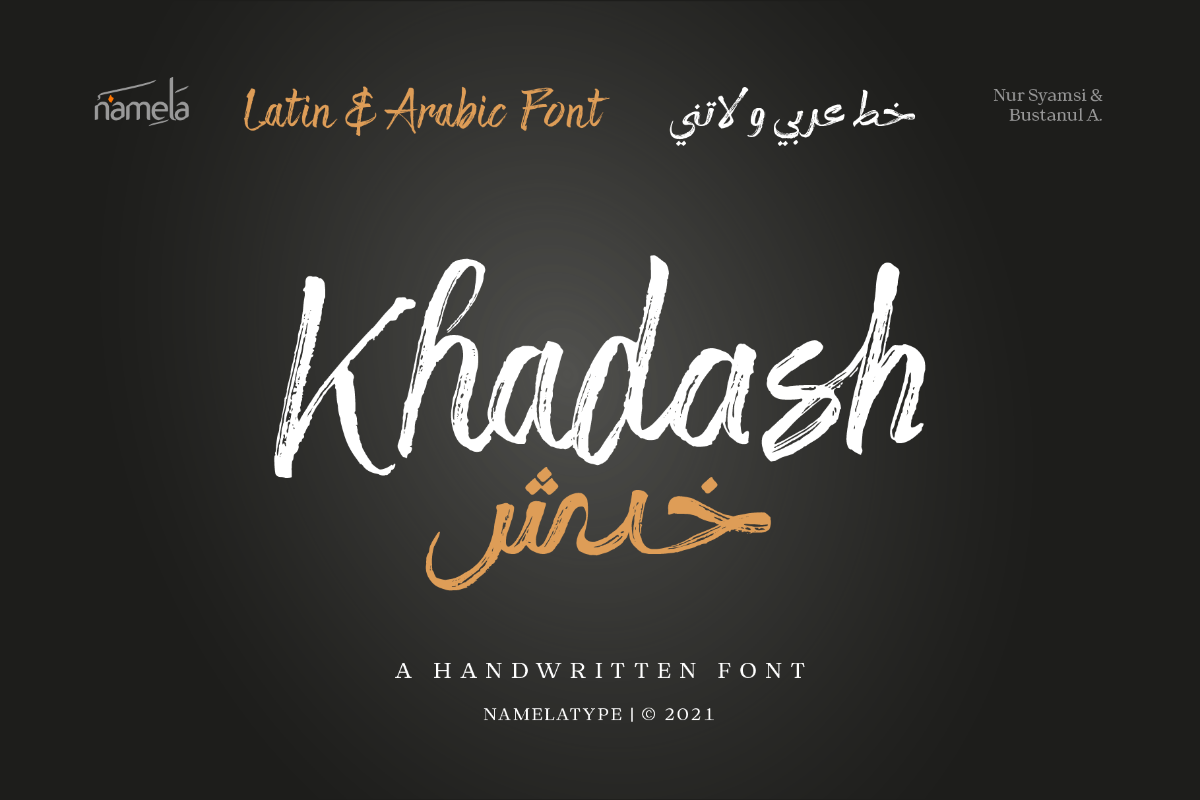
Khadash Arabic Swash
Khadash Arabic Font - A Handwritten Arabic Brush Typeface for Apps & ePub Some typefaces are designed to be clean and invisible, allowing content to take center stage. Khadash is not one of them. This striking brush font is built to be seen—carrying the raw, organic energy of a brush on paper into posters, headlines, and branding Derived from the Arabic word خدش (khadash), meaning a small scratch or mark, the typeface transforms natural imperfection into a deliberate design language.